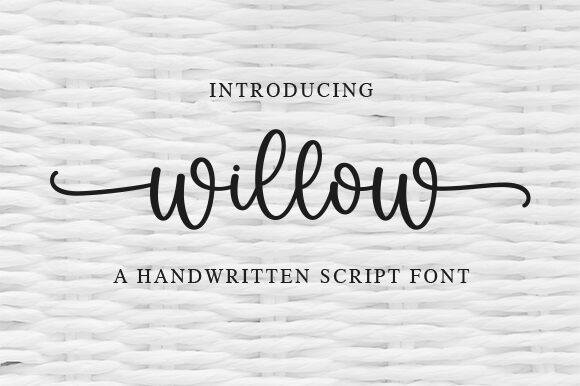
Willow
The Willow font, crafted by Graphix Line Studio, captivates with its whimsical, handwritten charm. This elegant script exudes a sense of graceful fluidity, seamlessly blending modern flair with a touch of vintage allure. Each letter flows effortlessly, creating a visually striking and cohesive composition that evokes a sense of warmth and authenticity.
Willow's versatility shines through, making it a versatile choice for a wide range of design applications. From personal stationery and wedding invitations to branding and editorial layouts, this font's unique character lends itself to projects that seek to convey a sense of sophistication, individuality, and a touch of the handcrafted. Its flexibility allows designers to incorporate Willow into both formal and casual settings, ensuring a harmonious and visually appealing aesthetic.